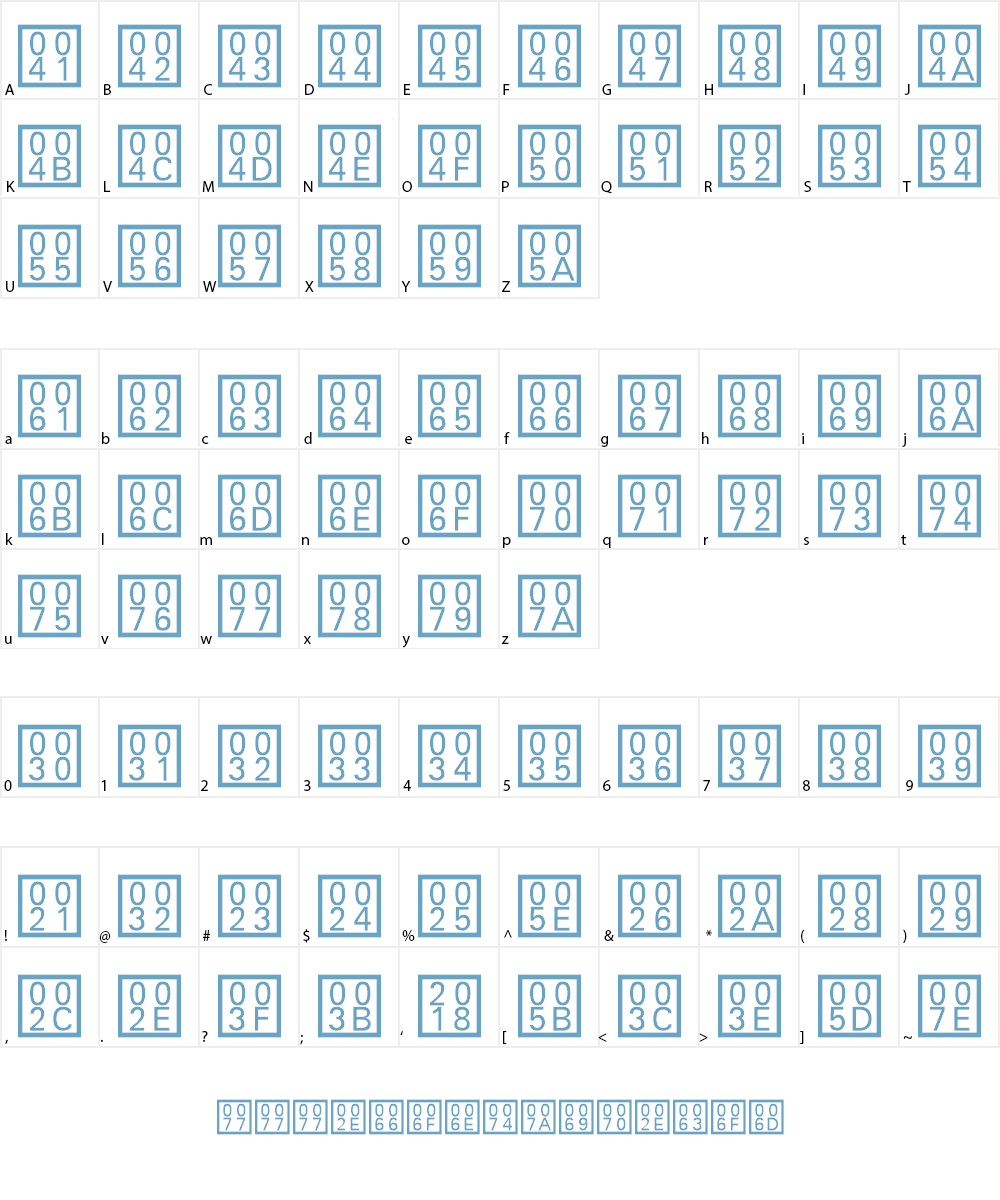
Intended for debugging, this font contains a glyph for every character in the Basic Multilingual plane (including Private Use Area) of Unicode 5.1, each glyph consisting of a box enclosing the four hex digits identifying the Unicode scalar value.